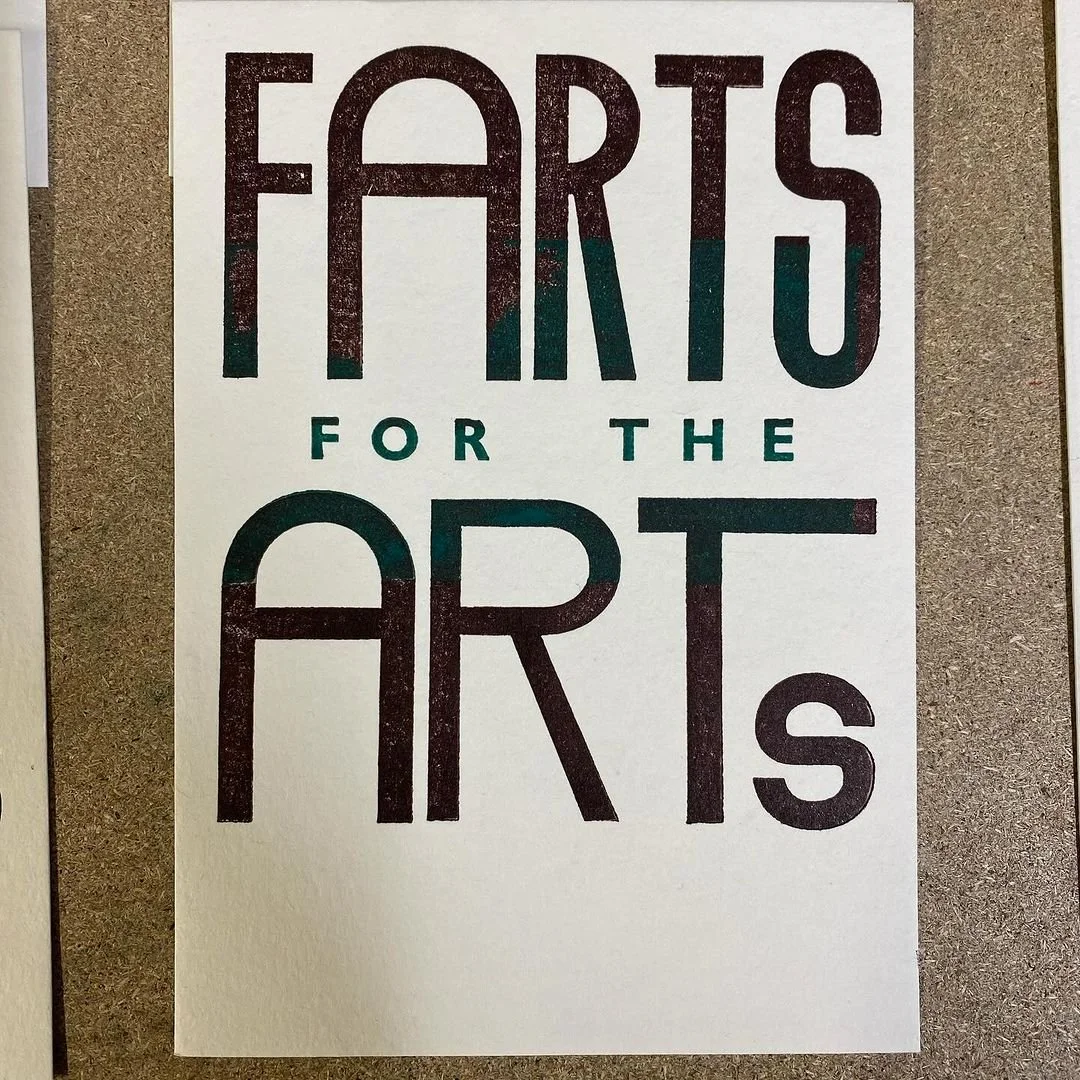
Penny Farthing
Originally designed by Bob Newman in 1974, Penny Farthing has been expertly digitised by Mathieu Triay. The iconic face is now available for letterpress printers to create endless variations in their prints.
Never seen before in wood type, this release of Penny Farthing consists of 12 Line Regular, Condensed and Container blocks, alongside 6 line Small Cap blocks which lock into the containers to create movable glyphs.
Printed samples by Princetown Press.